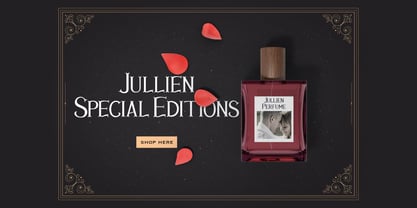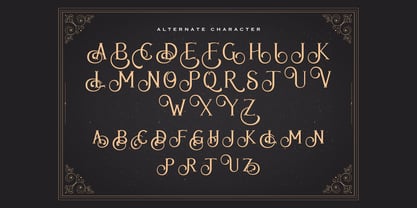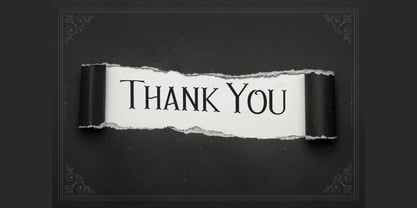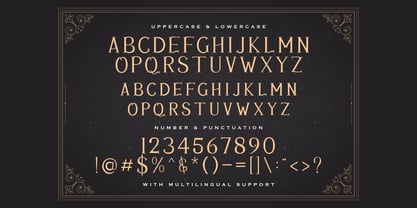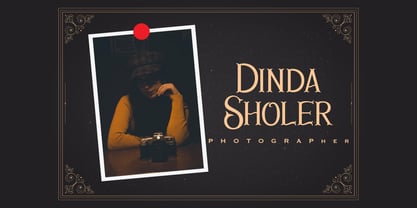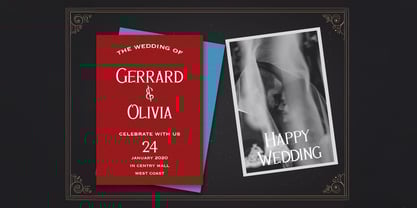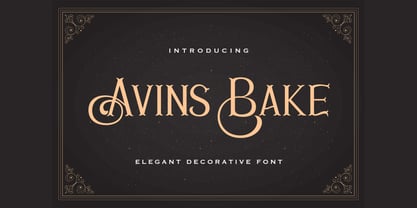
The Avins Bake Font Family was designed by Virgiawan Listanto and published by Stringlabs Creative Studio. Avins Bake contains 1 styles. More about this family
Avins Bake is a charming decorative serif font that blends elegance with a playful twist. Designed to make your typography stand out, Avins Bake features graceful serifs, stylish curves, and unique letterforms that bring a handcrafted, artistic flair to any design. Whether you're crafting a vintage-inspired logo or an eye-catching social media post, Avins Bake delivers a timeless look with a touch of personality.
Designers: Virgiawan Listanto
Foundry: Stringlabs Creative Studio
Avins Bake